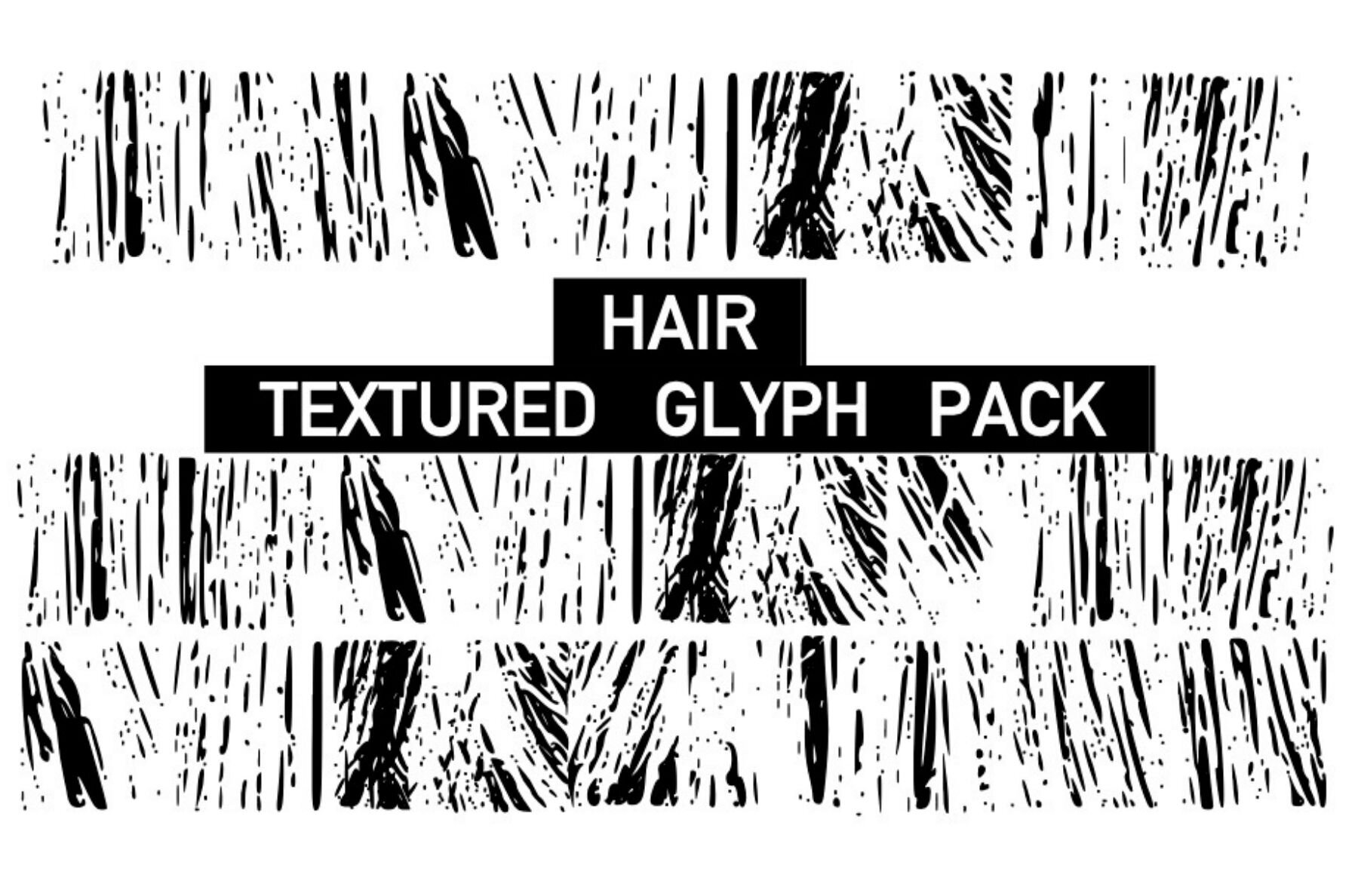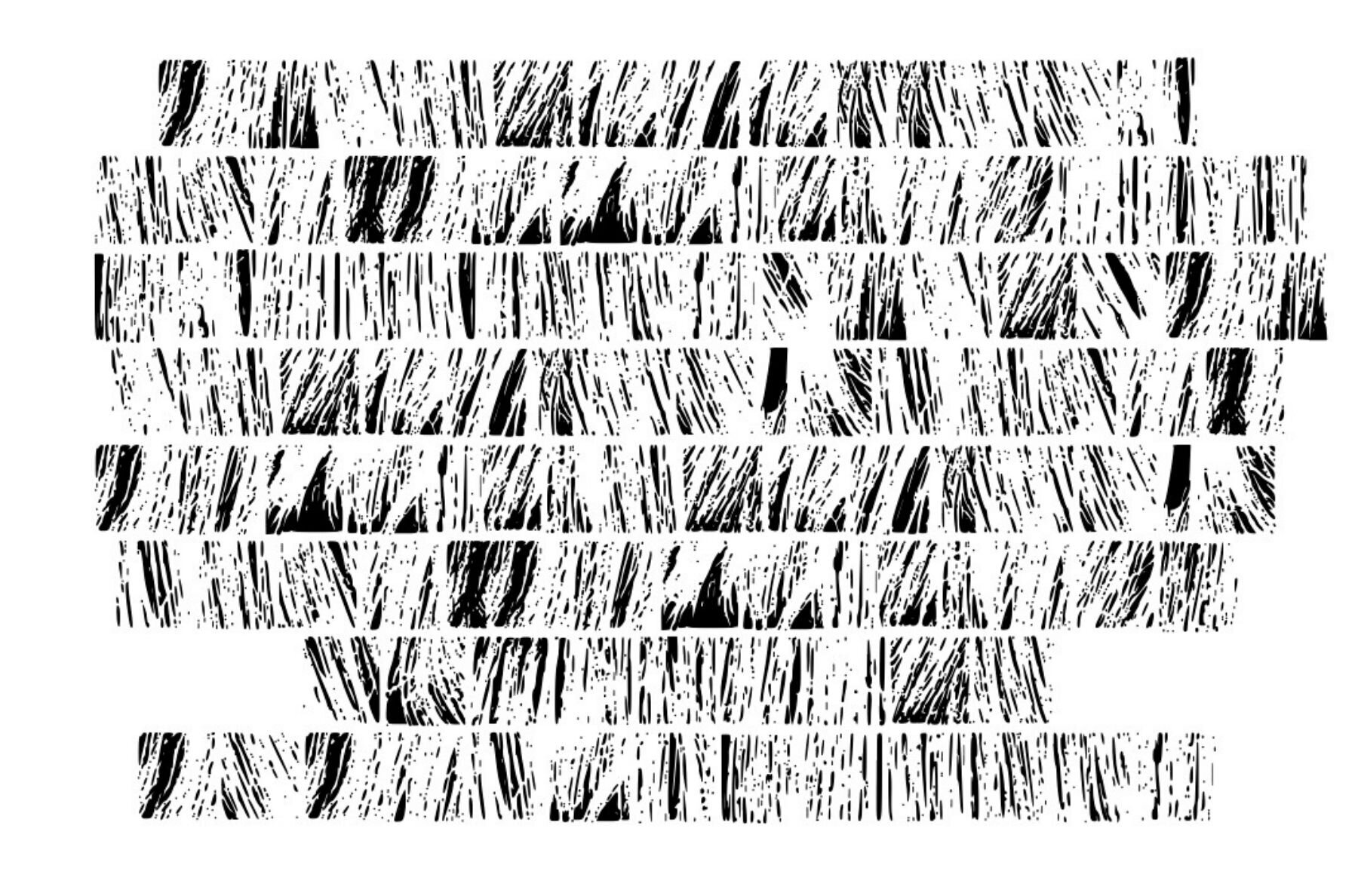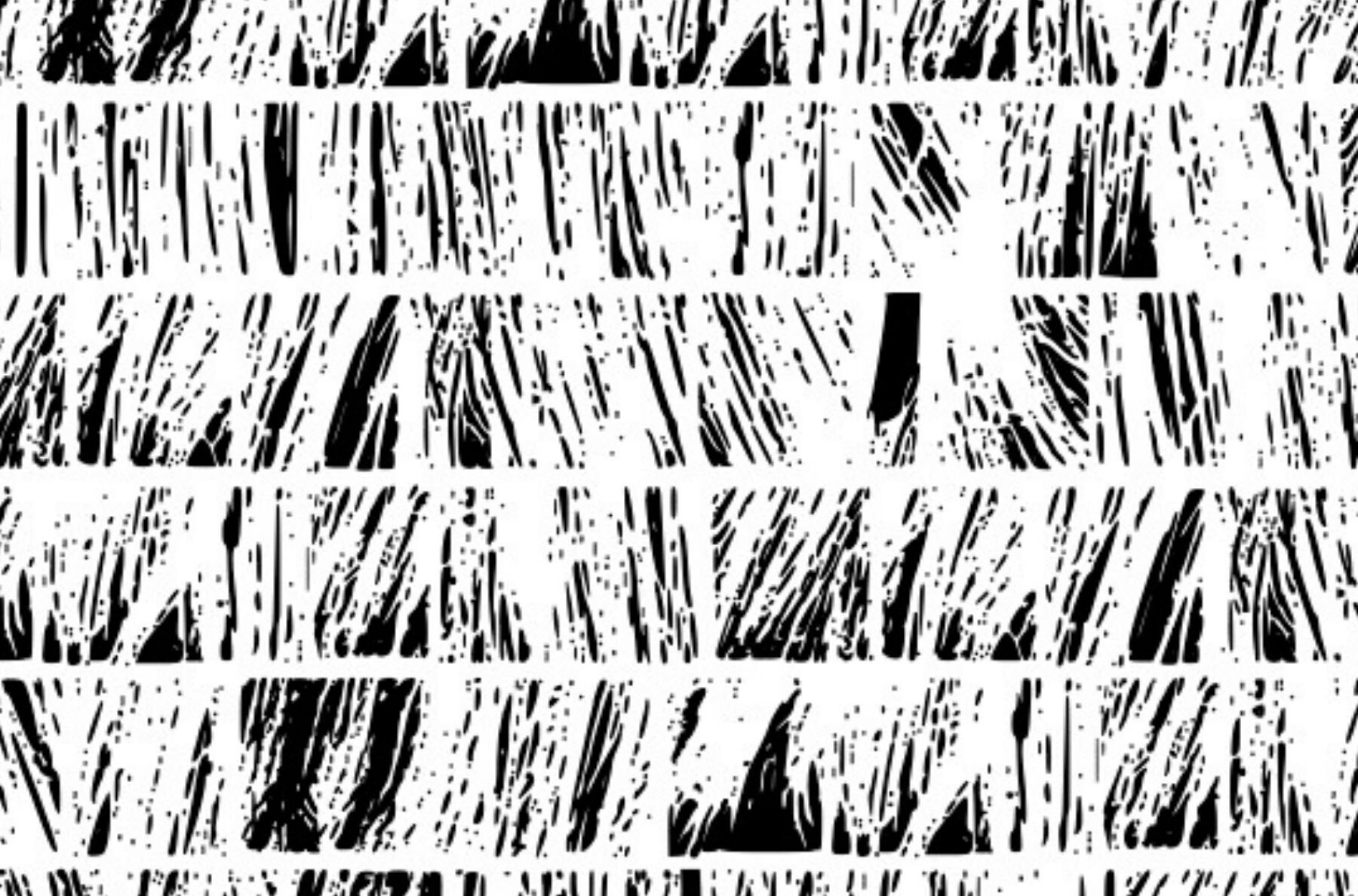
Texture Hair Font
Texture Hair Regular
Explore the expansive world of Hair Textured Glyphs with this extensive collection of long, brushed hair textures—ideal for elevating your creative endeavors. This comprehensive glyph pack offers versatile options for designers seeking to add intricate texture and depth to their projects. Whether you're working on branding, web design, or illustrative artwork, these unique textures provide endless possibilities to enrich your art with sophistication and flair.Texture Hair by Graphics Bam